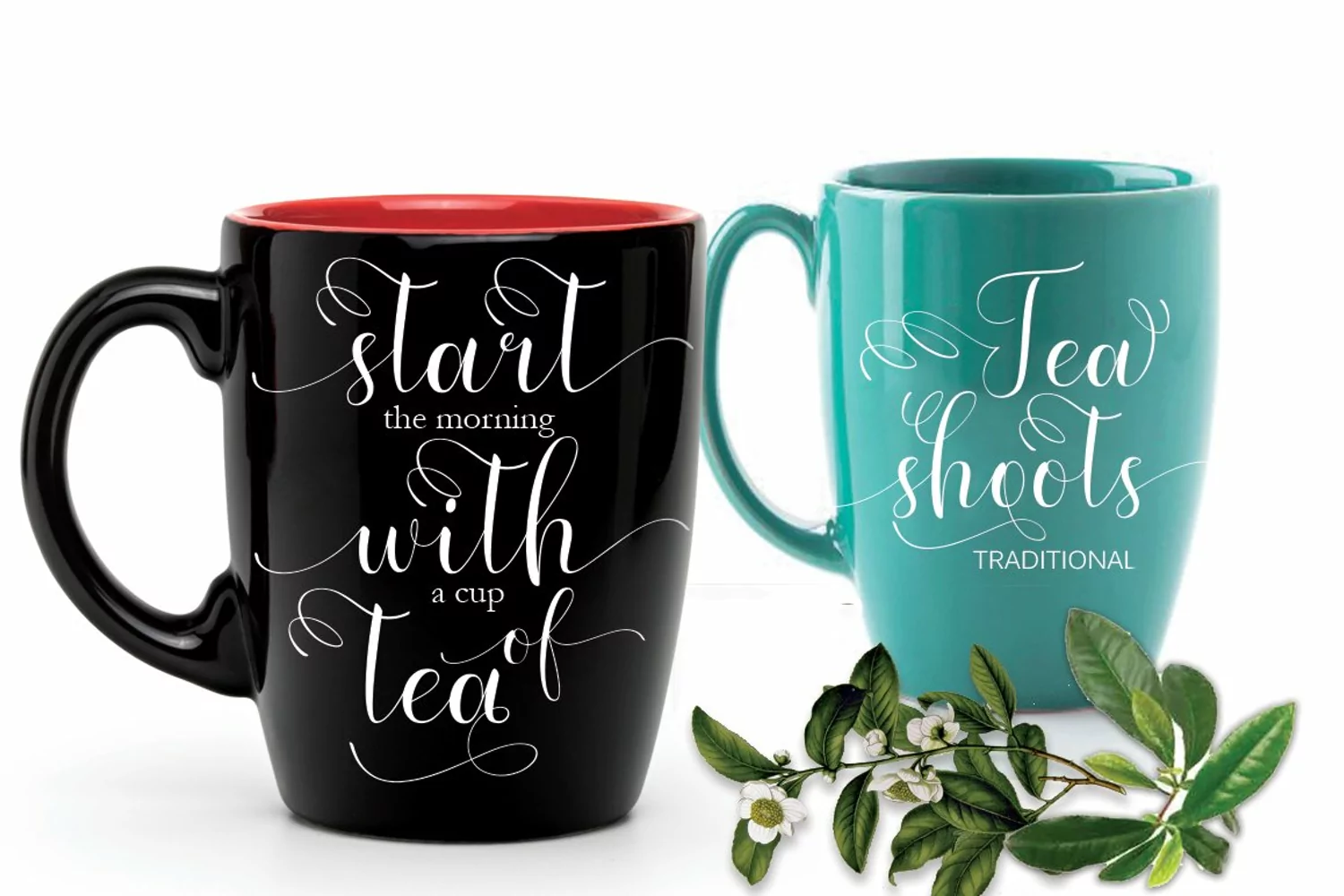
Espontise Script : A script that is so beautiful
with gorgeous grounds, and furnished with fine lines are perfect for use
many purposes. such as title, signature, logo, correspondence, wedding
invitations, letterhead, signage, labels, newsletters, posters, badges,
Branding, Greeting Cards, etc.
Espontise Script : features 532 glyphs and has given PUA unicode
(specially coded fonts), can be accessed easily with the character map,
can be accessed in full by the lovers of letters or artisans to
increase career in the design world.
The Features of this fonts is: Standart ligatures, Stylistic Sets, and swashes.